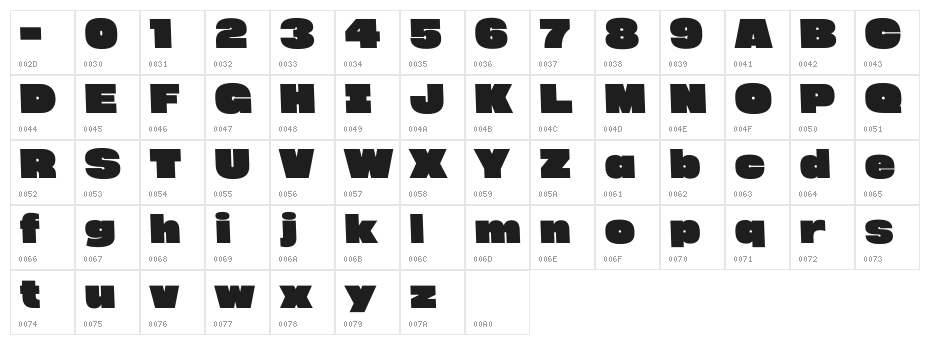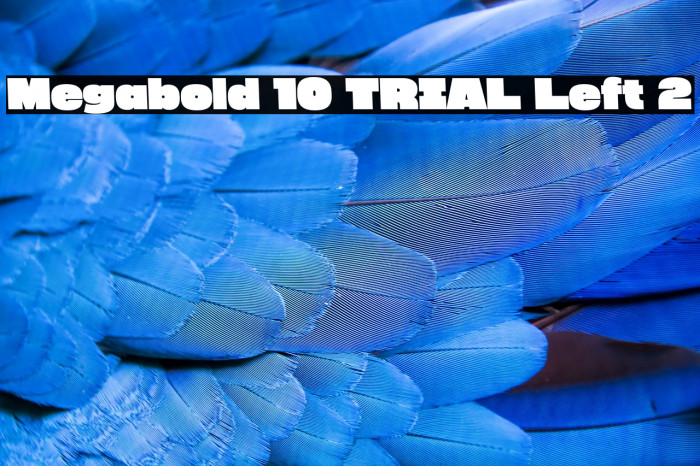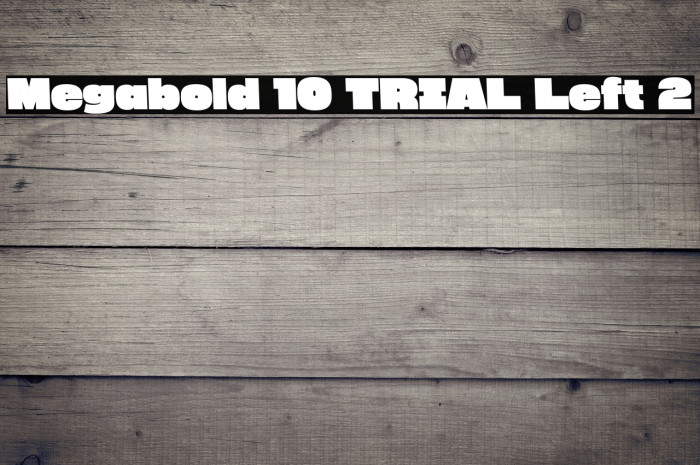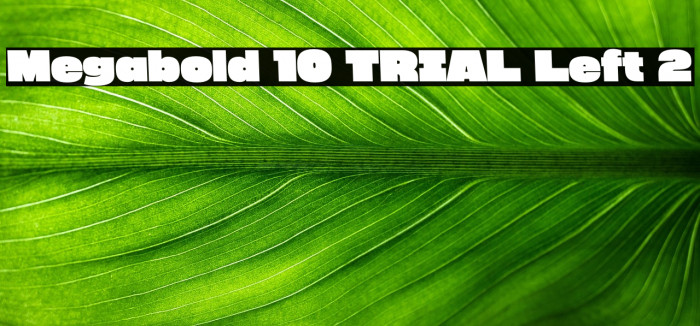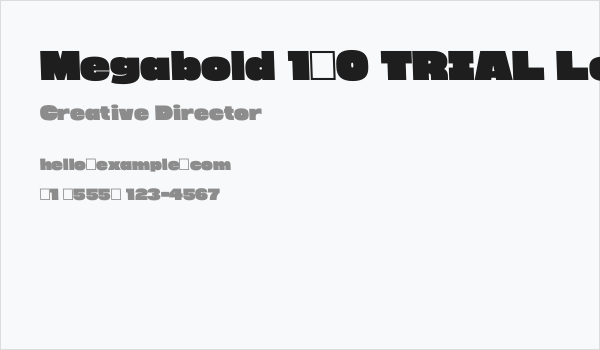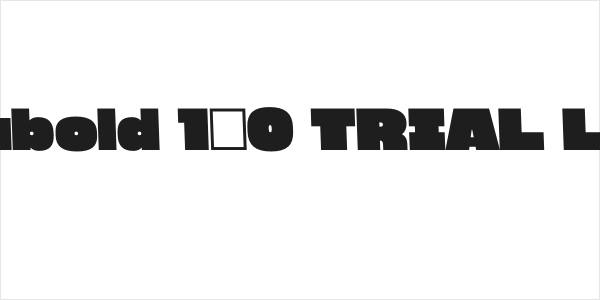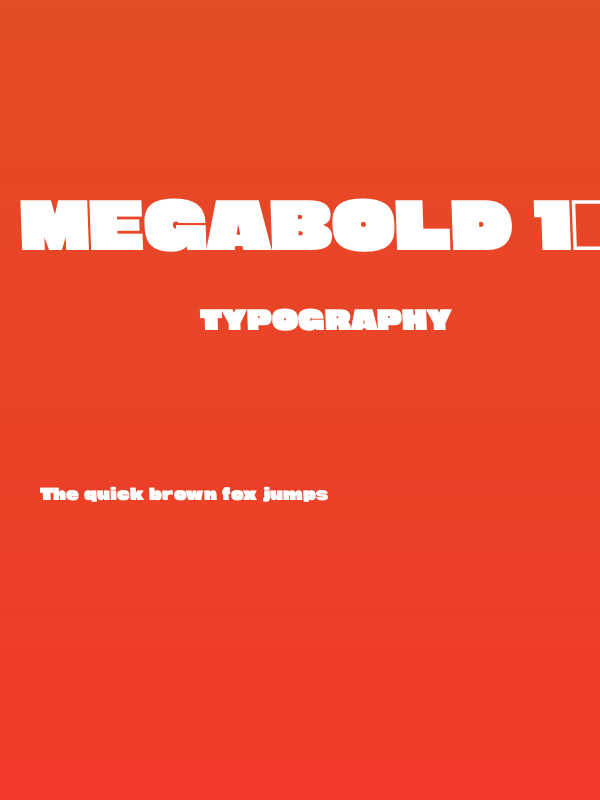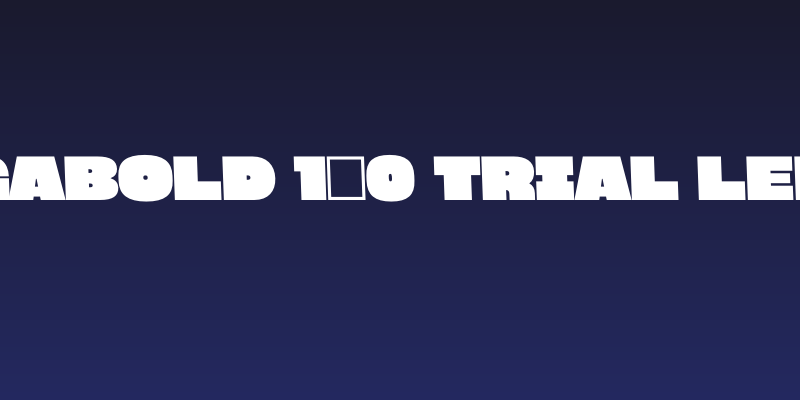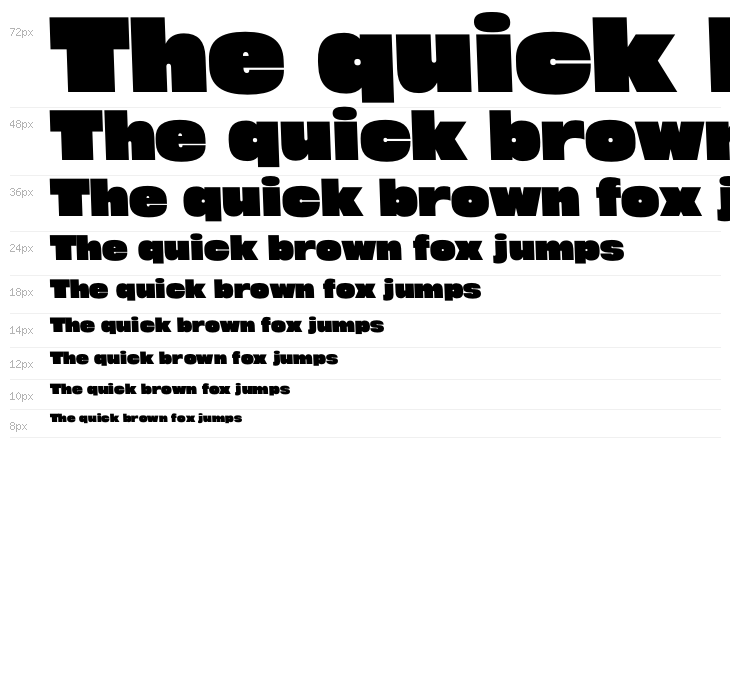
Megabold 1.0 TRIAL Left 2 Font
Megabold 1.0 TRIAL Left 2 Description
This font is characterized by its extremely bold and heavy weight, making it a standout choice for impactful designs. The letters are wide and have a strong presence, with minimal spacing between characters, creating a cohesive and powerful look. The uppercase and lowercase letters maintain a consistent thickness, contributing to the font's uniform appearance. The numbers and special characters follow the same bold style, ensuring consistency across all elements. This font is ideal for projects that require a strong visual impact and a modern, assertive aesthetic.
| Proposed Projects | Ideal for headlines, posters, branding, and any design requiring a bold statement. |